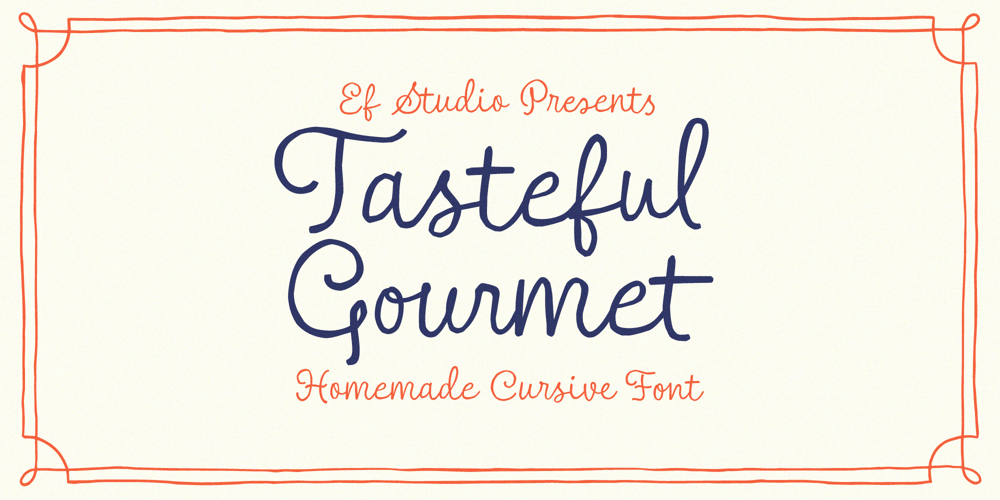
Tasteful Gourmet Font Family was designed by Luthfi Fauzi and published by Ef Studio. Tasteful Gourmet contains 1 styles and family package options. Tasteful Gourmet is a script font that designed to capture the essence of a quaint bistro and the comfort of rustic kitchens. This font adds an authentic, homey feel to any culinary project. Elevate your culinary creations with a font that evokes the simplicity and warmth of country living, perfect for any rustic-themed cookbook, menus, dinner party invitation, and so on.Please claim your VECTOR BONUS by email : efstudio2@gmail.com Please send a message if you have questions or problems, and don’t hesitate to say hello on instagram www.instagram.com/luthfi_ef/Thank you!